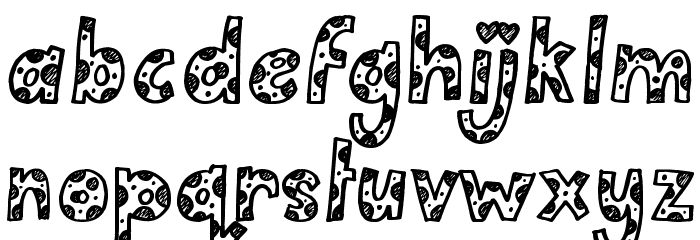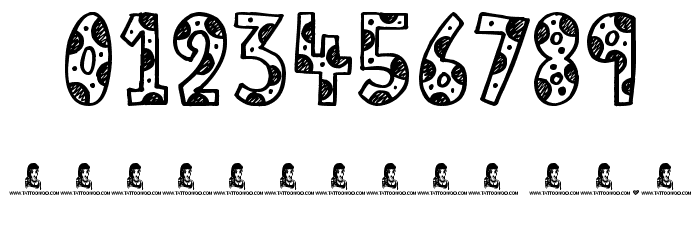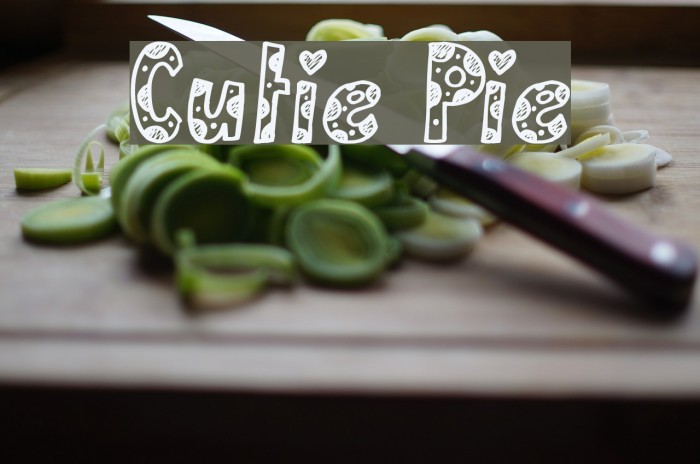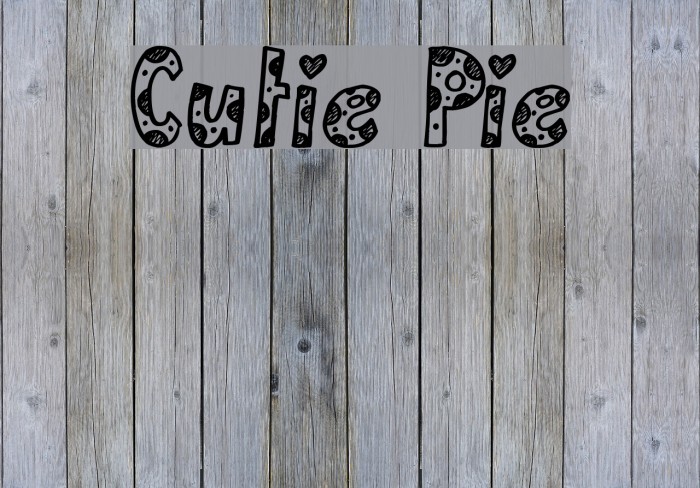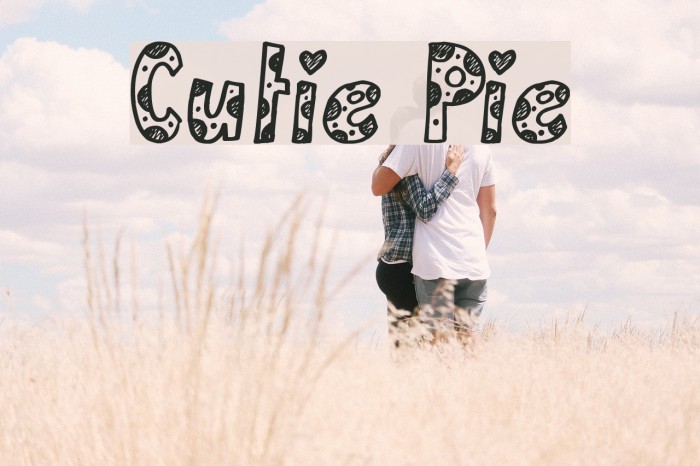
Cutie Pie Font
This playful and whimsical font features bold, hand-drawn characters with a unique pattern of dots and lines inside each letter. The design gives off a fun and quirky vibe, making it perfect for creative projects. The uppercase and lowercase letters maintain a consistent style, with rounded edges and a slightly irregular shape that adds to the charm. Numbers and special characters follow the same decorative pattern, ensuring a cohesive look across all text elements. The font's artistic flair makes it ideal for projects that require a touch of personality and creativity.
A playful, hand-drawn font with decorative patterns inside each character.
- Proposed Projects: Ideal for children's books, playful branding, party invitations, and creative posters.
- Overall Style: Whimsical